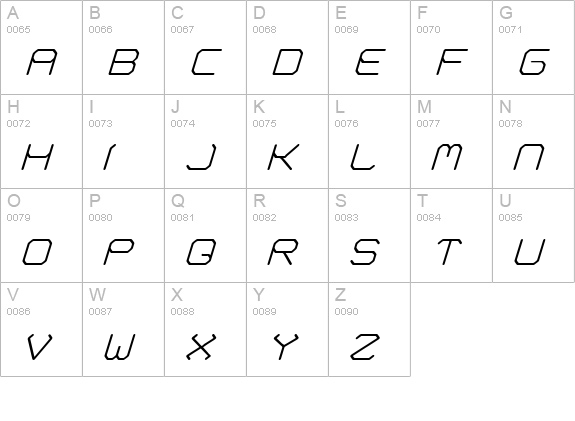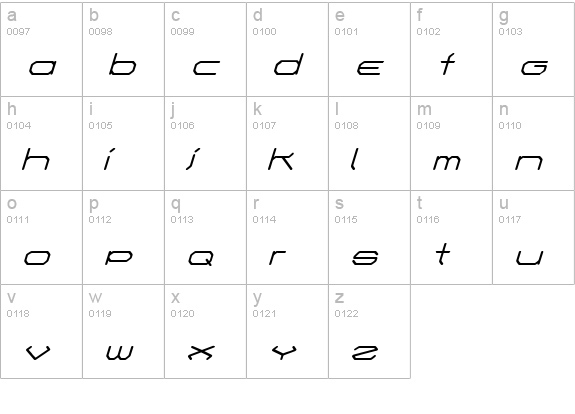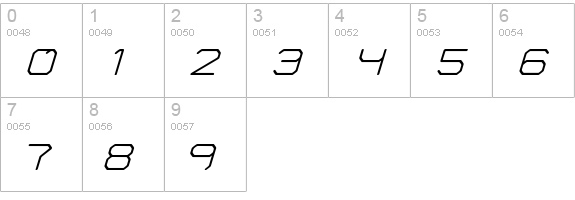
Fontmaker's Choice Italic Font Details
Fontmaker's Choice Italic is a distinctive, italic variant in the Fontmaker's typeface family \xE2\x80\x94 well suited to design and typography projects.
Introducing Fontmaker's Choice Italic, a beautifully crafted font that exudes elegance and sophistication. This italic typeface is designed to add a touch of style and flair to any project, whether it's for invitations, branding, or editorial design. Fontmaker's Choice Italic features delicate and flowing lines that create a sense of movement and grace. The slanted design adds a dynamic touch to the text, making it perfect for emphasizing important details or creating a sense of drama. What's even better is that Fontmaker's Choice Italic is available for free download at FontsMarket.com. Now you can easily access this stunning font and elevate your designs without breaking the bank. Don't miss out on the opportunity to add Fontmaker's Choice Italic to your font collection today!